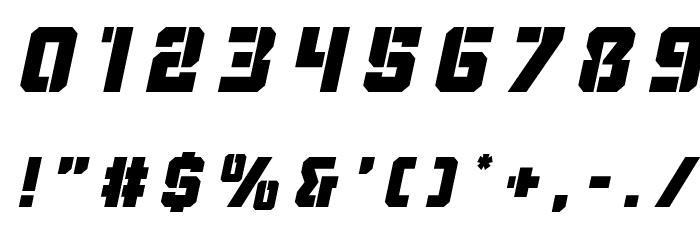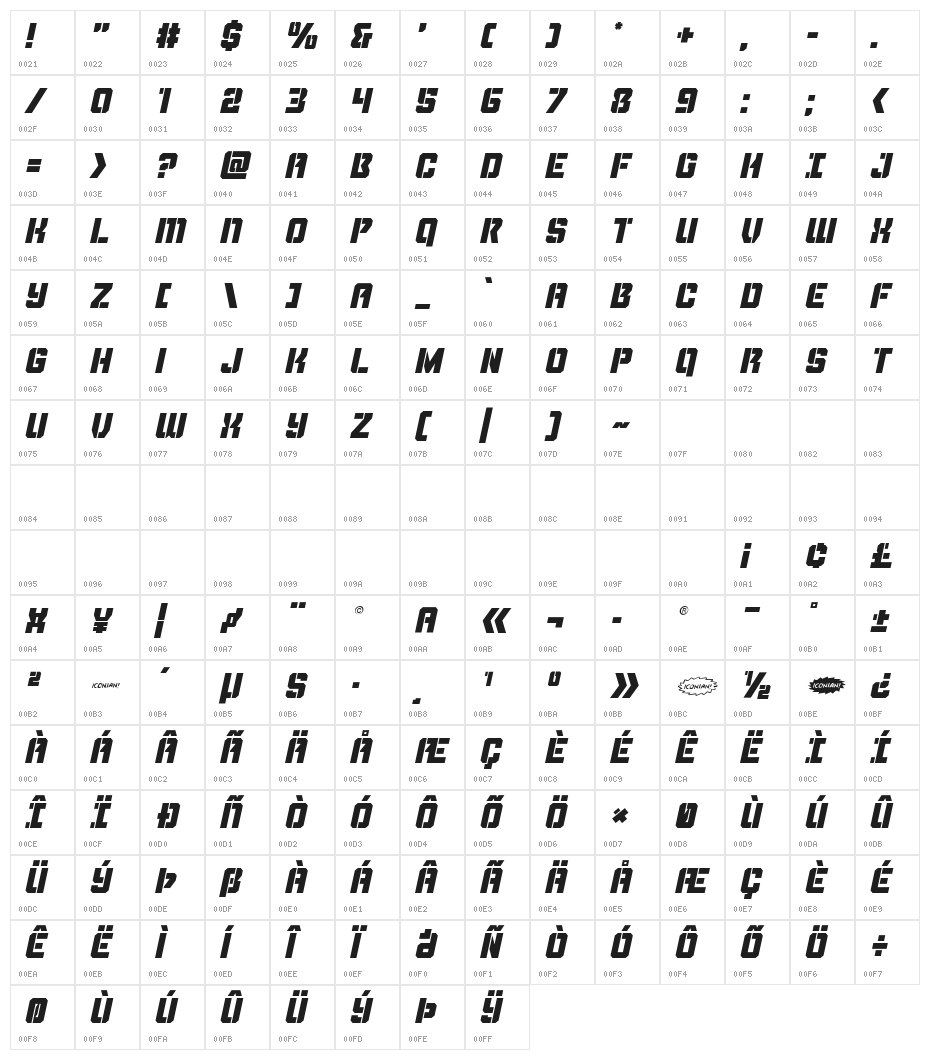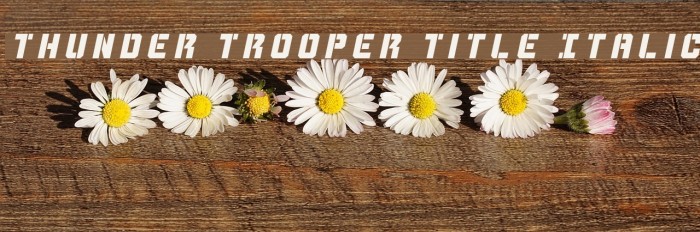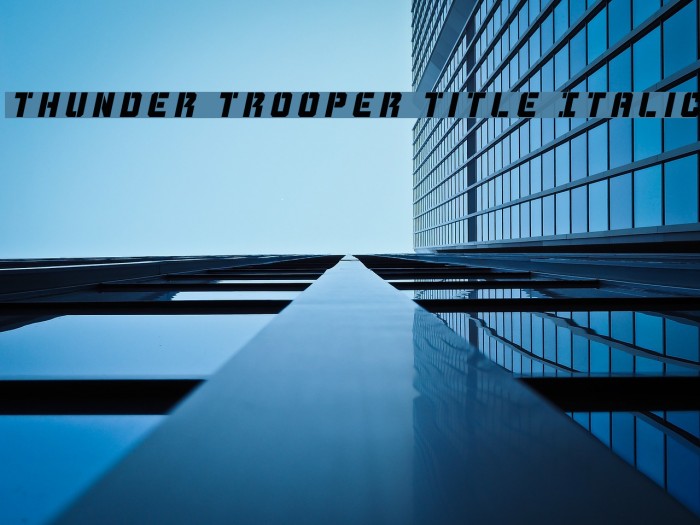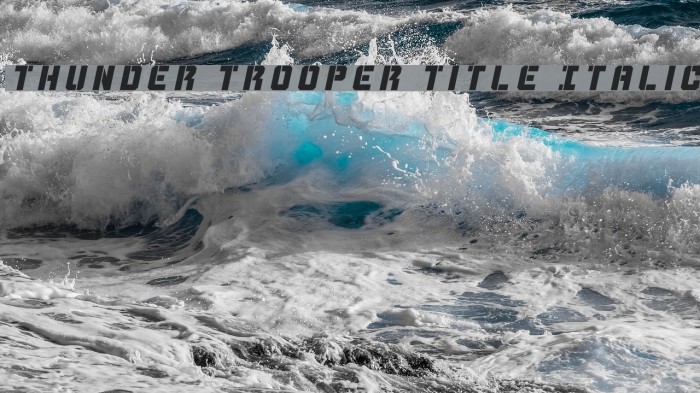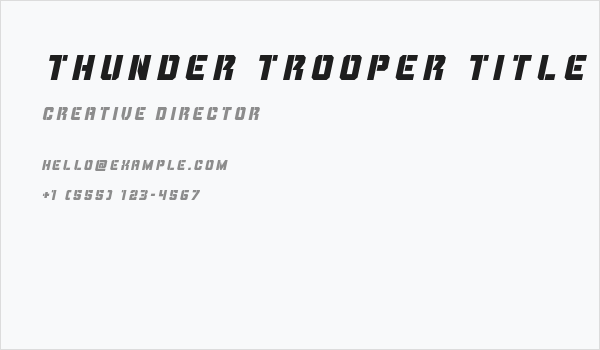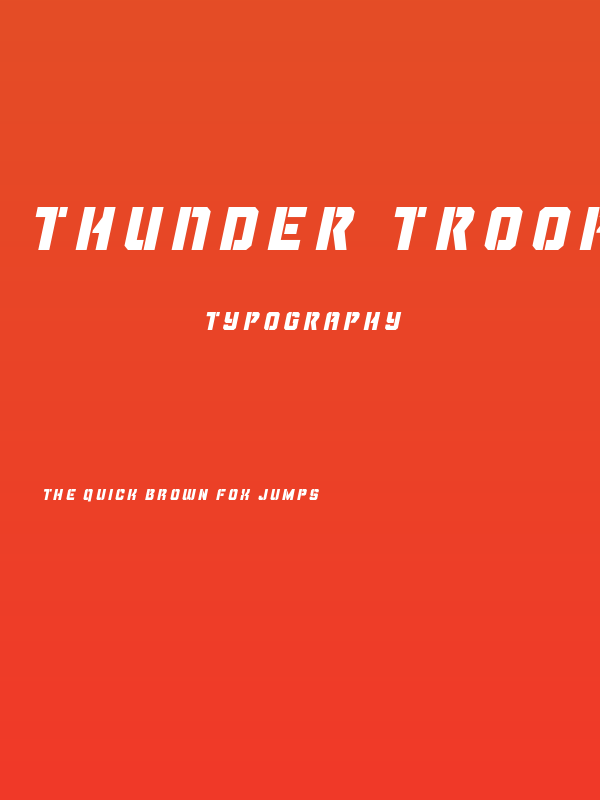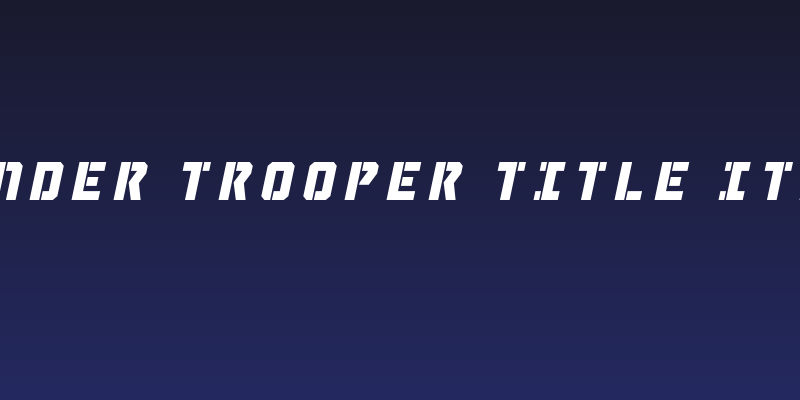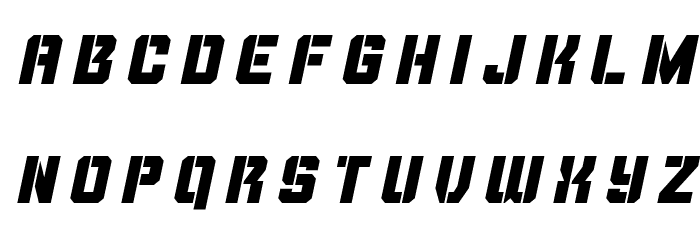
Thunder Trooper Title Italic Font
Thunder Trooper Title Italic Description
This font features a bold and dynamic style with a futuristic and angular design. The characters are italicized, giving them a sense of motion and energy. Each letter is constructed with sharp edges and a slightly condensed form, creating a compact and impactful appearance. The numbers and special characters maintain the same bold and angular characteristics, ensuring consistency across all glyphs. This font is ideal for projects that require a strong and modern aesthetic, such as technology-related branding or action-themed designs.
| Proposed Projects | Ideal for technology branding, action-themed designs, and modern posters. |